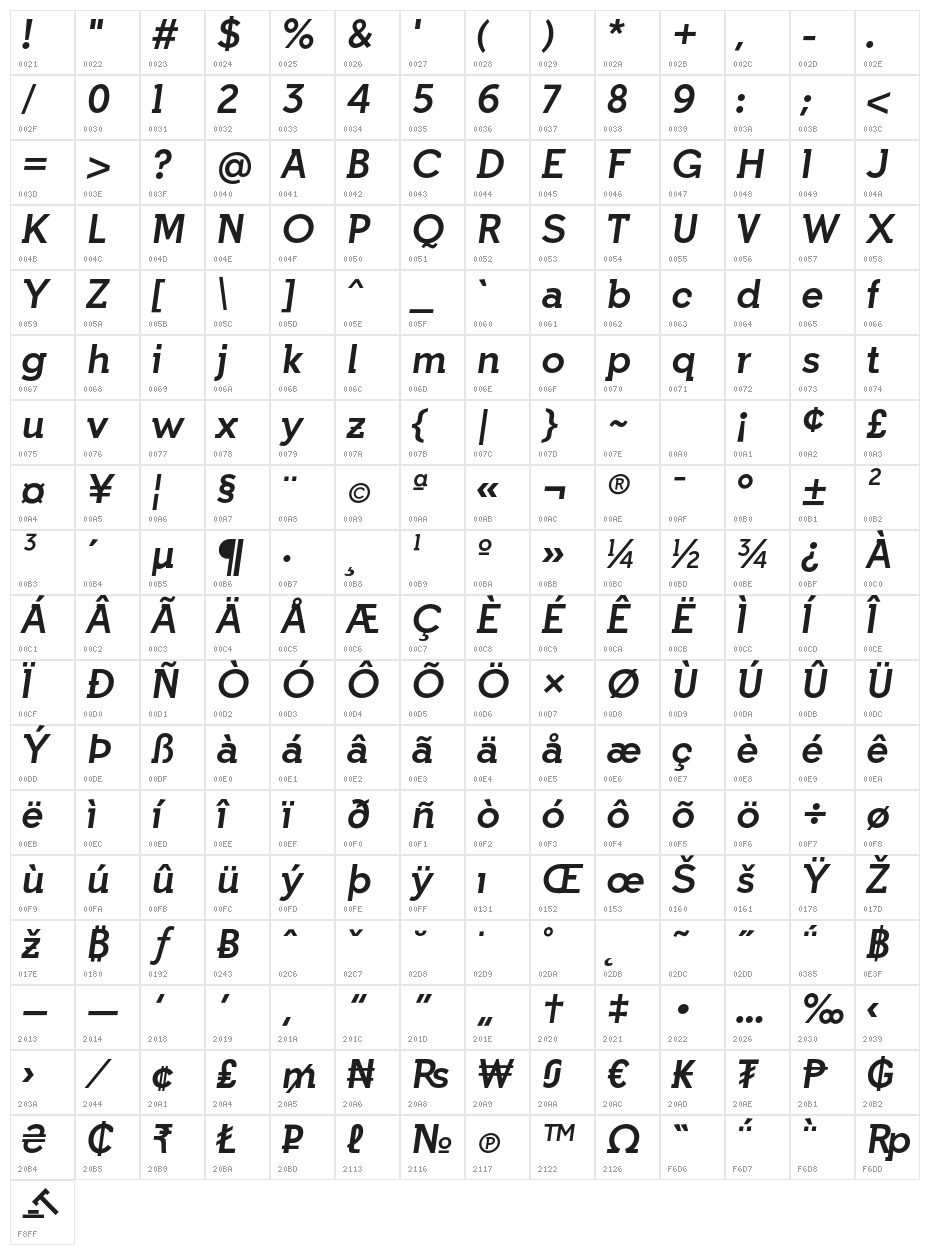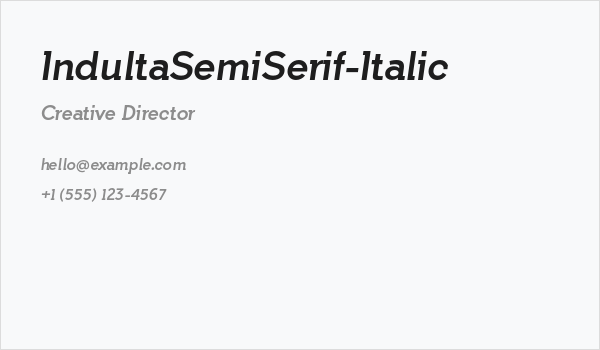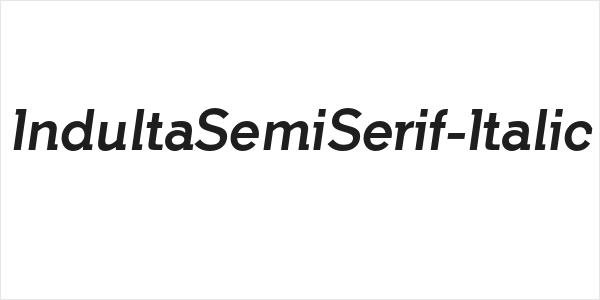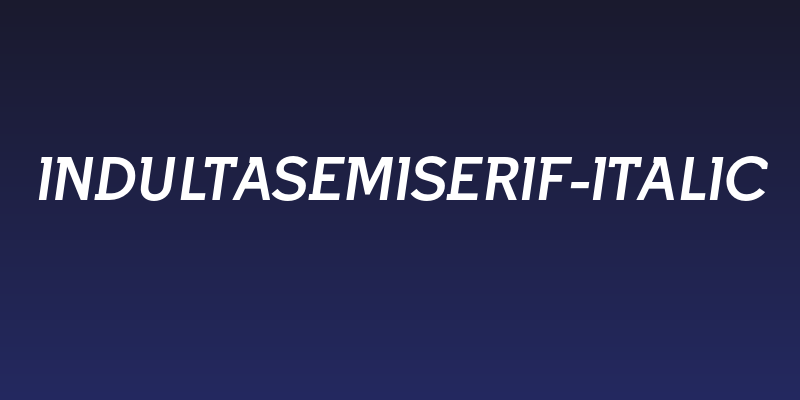
IndultaSemiSerif-Italic Font
IndultaSemiSerif-Italic Description
This font presents a refined semi-serif style with a subtle italic slant, offering a blend of traditional serif elegance and modern sans-serif simplicity. The characters exhibit a moderate stroke contrast, enhancing readability while maintaining a sophisticated appearance. The uppercase letters are bold and assertive, while the lowercase letters maintain a smooth and flowing form. The numerals are clear and well-proportioned, making them suitable for both text and display purposes. Special characters are distinct and harmoniously integrated into the overall design, providing versatility for various typographic needs.
| Proposed Projects | Ideal for editorial design, branding, and sophisticated advertising campaigns. |